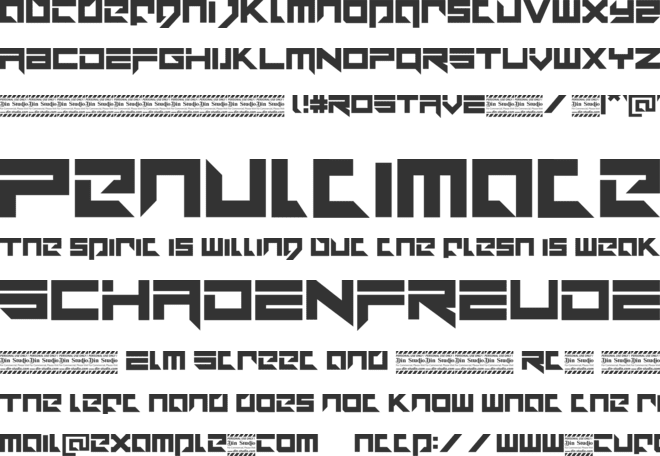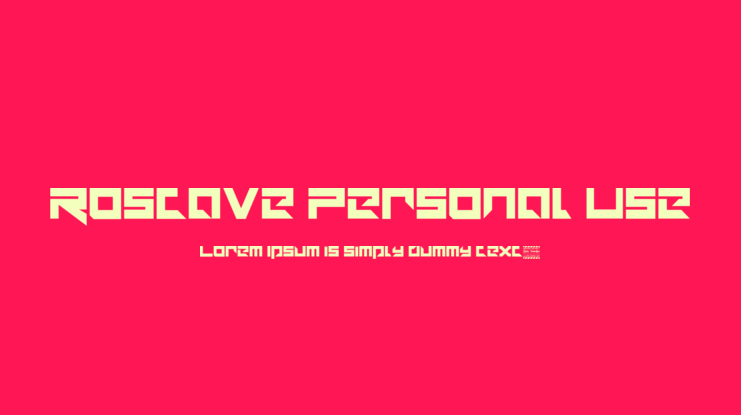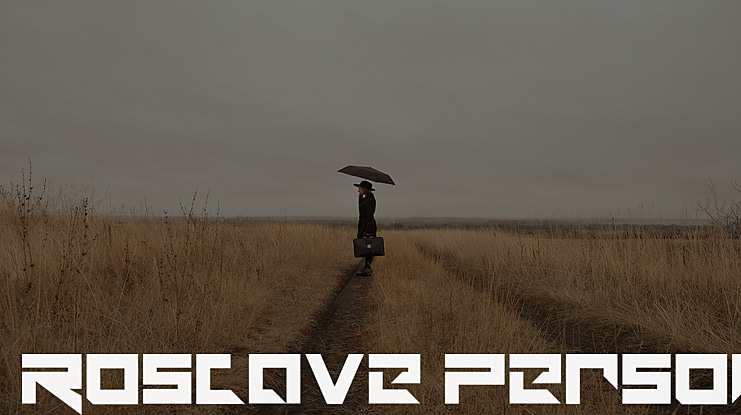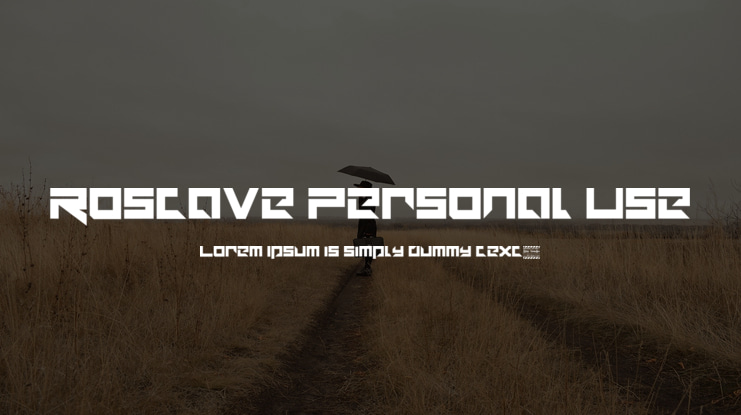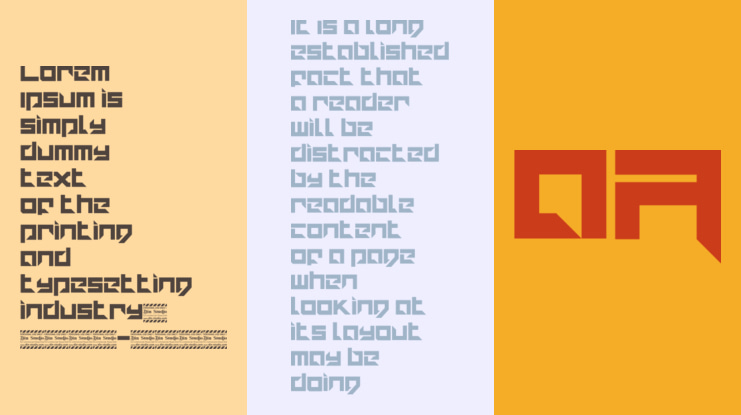
Introducing Rostave Font. Rostave Font is created from our talented font designer. The design of typeface will make your project more powerful and inspiring. This font will suitable for any project that needs futuristic touch.